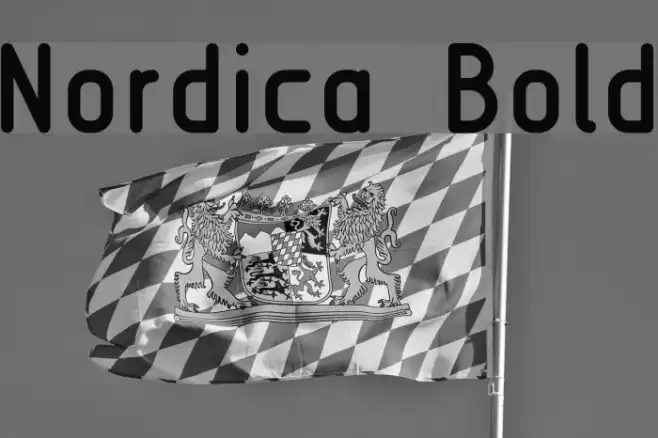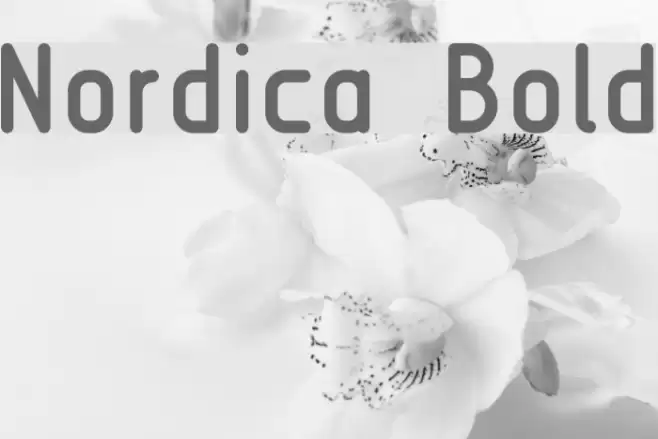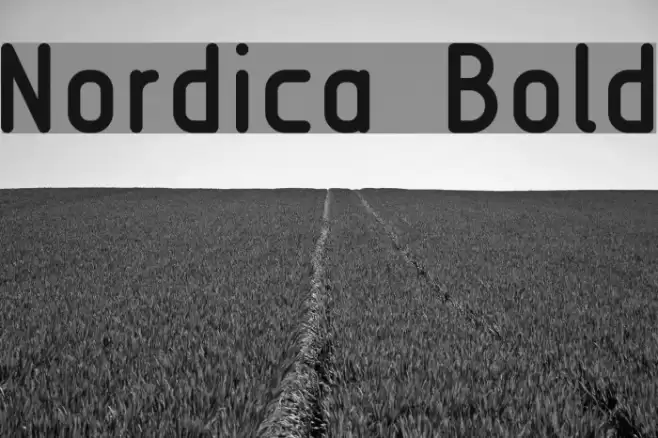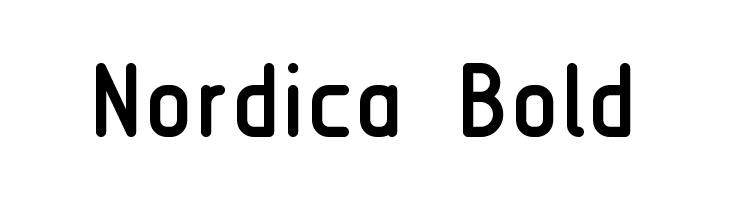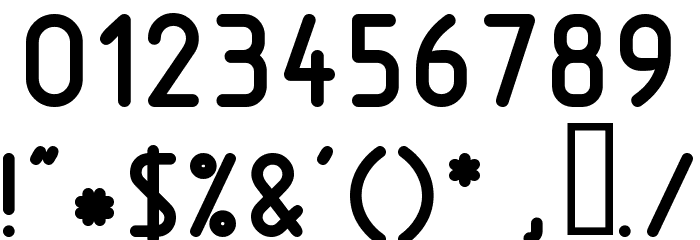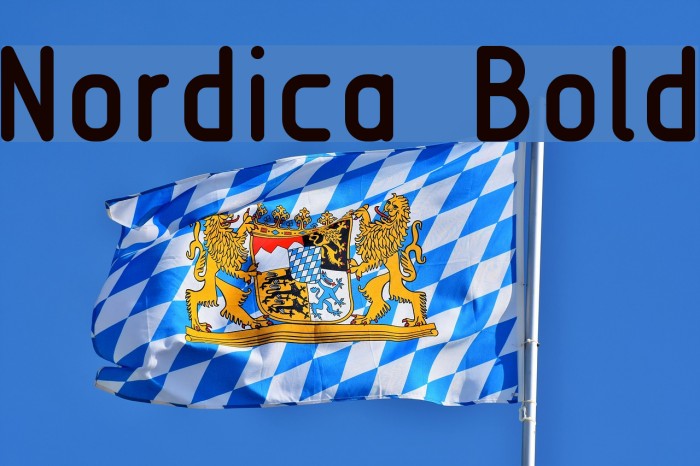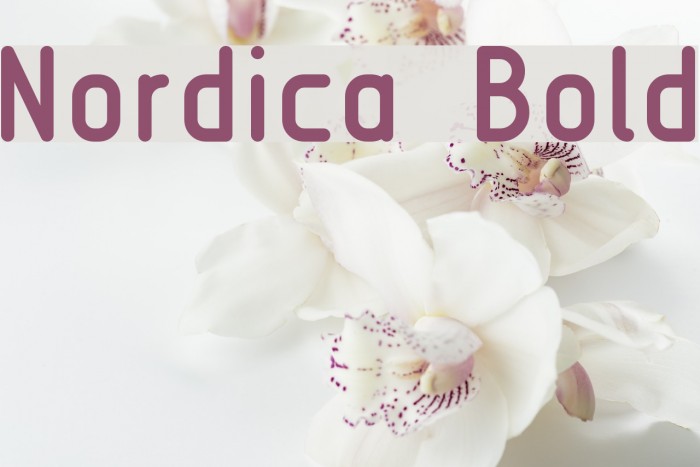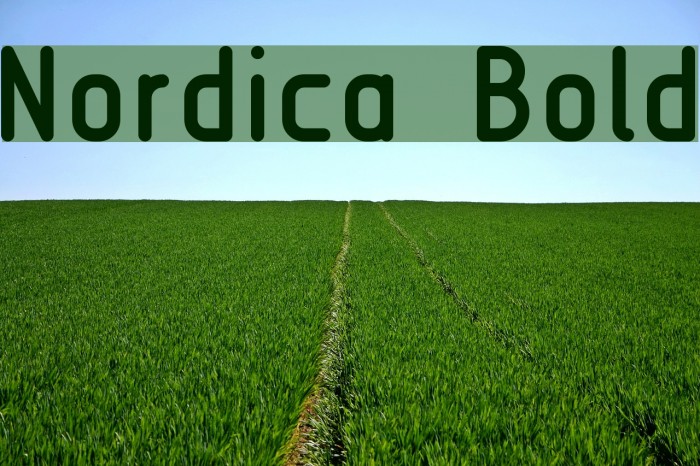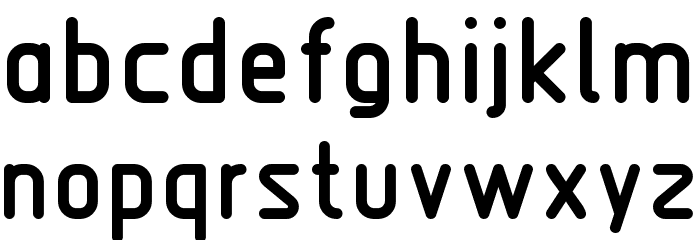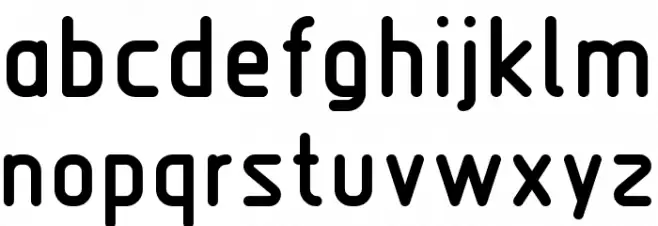
Nordica Bold
This font features a bold and modern design with rounded edges, giving it a friendly and approachable appearance. The characters are evenly spaced, providing a clean and organized look. The uppercase and lowercase letters maintain a consistent style, with the rounded corners adding a touch of softness. The numerals and special characters are designed to match the overall aesthetic, ensuring uniformity across all elements. This font is versatile, suitable for various applications where a contemporary and inviting feel is desired.
A bold, modern font with rounded edges and a friendly appearance.
- Proposed Projects: Ideal for branding, advertising, packaging, and digital content where a modern and approachable look is needed.
- Use Case: Headlines, Logos, Branding